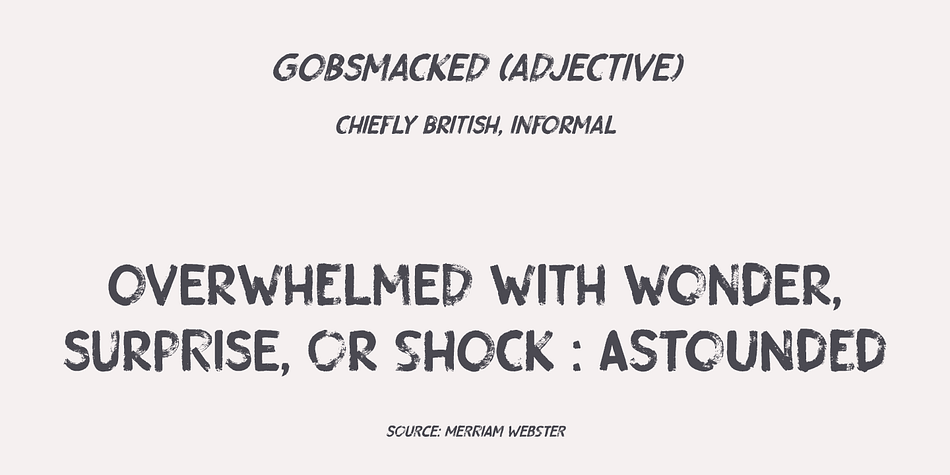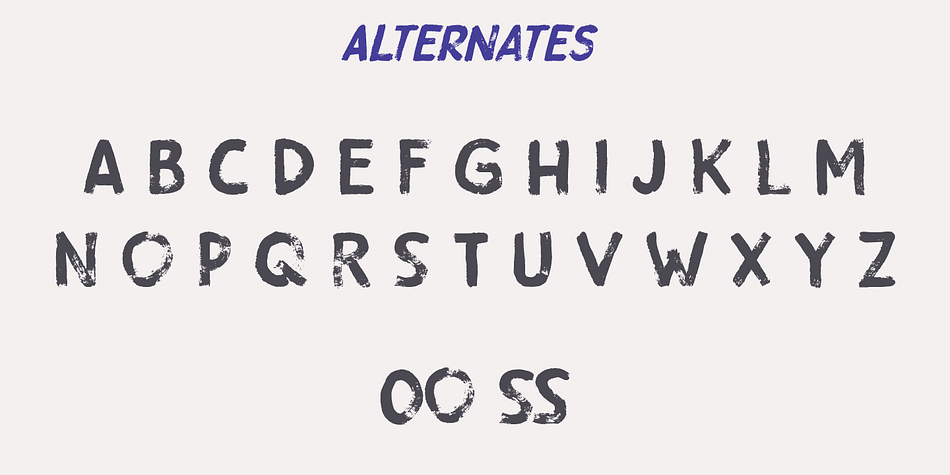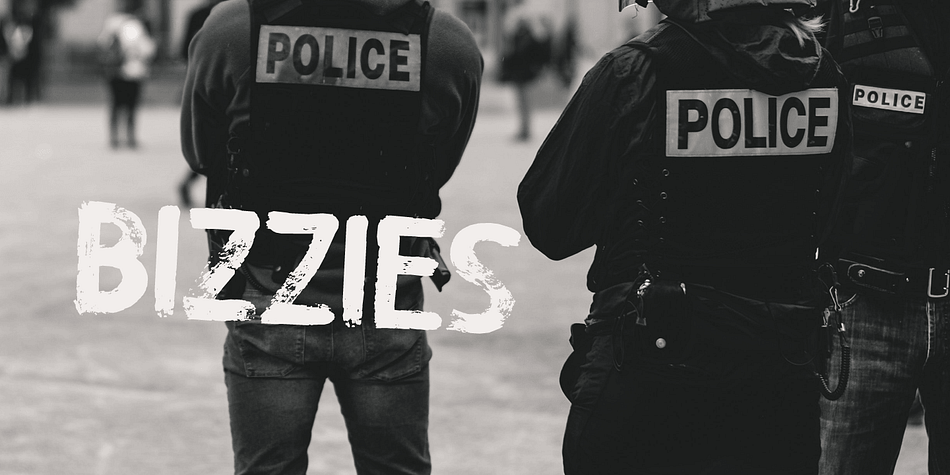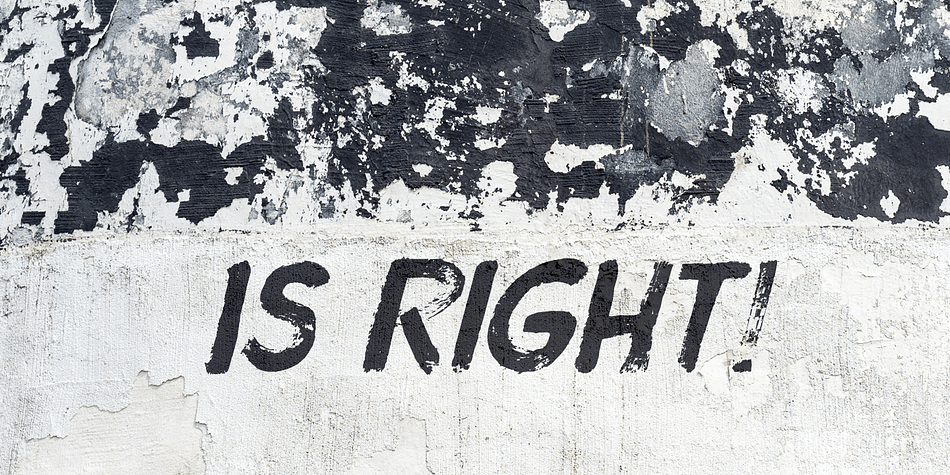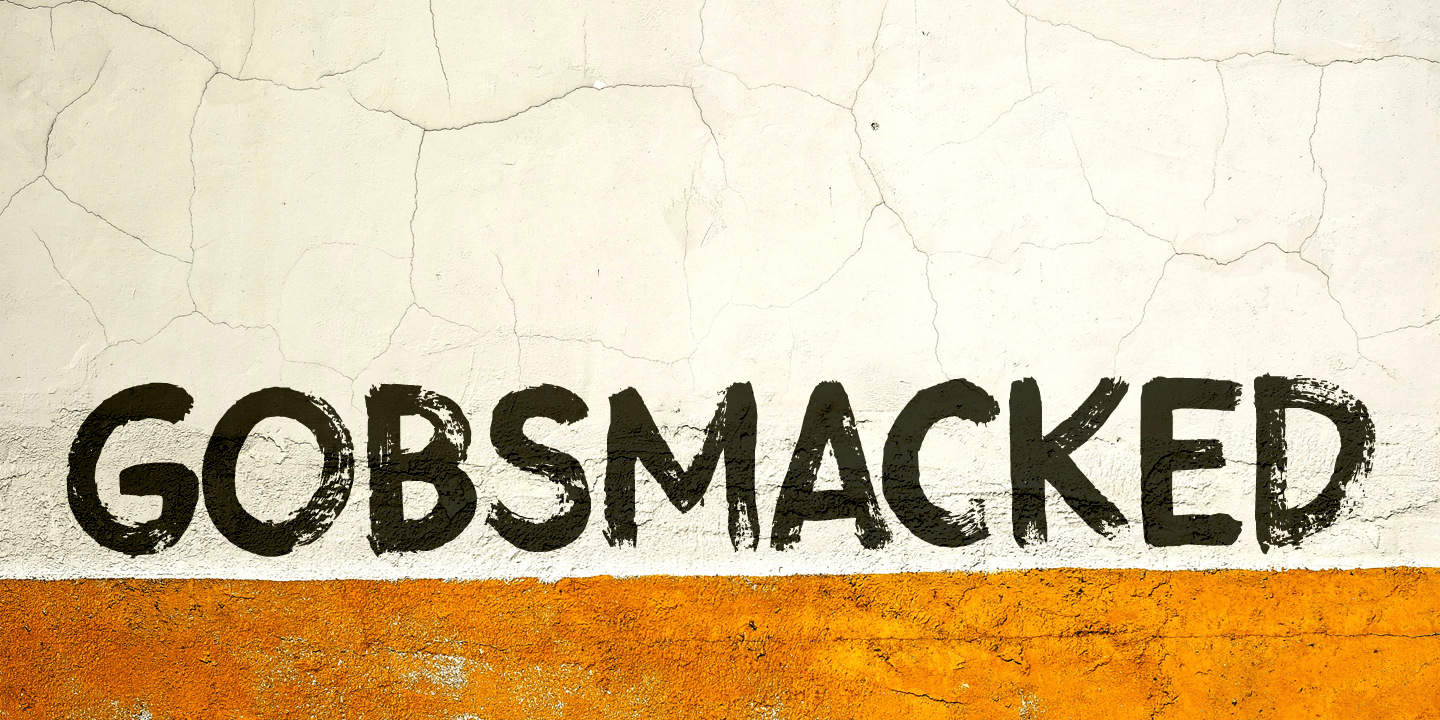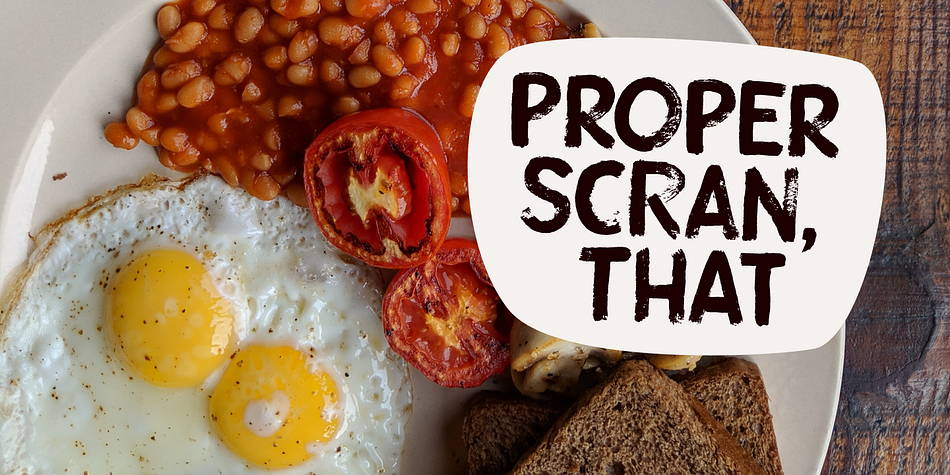
Designed by David Kerkhoff, Gobsmacked is a brush display and grunge font family. This typeface has two styles and was published by Hanoded.
Gobsmacked is a rather new English word. It has been around since 1959 and was used mostly around Liverpool at that time. The word means: ’astounded’, ‘flabbergasted’ (another nice word!) or ‘speechless’. Gob could be of French or Scottish Gaelic origin and means ‘mouth’.
Gobsmacked font was created using a brush and black gouache. The result is a very eroded, very legible and quite unique brush font. I have created alternates for the lower case letters, plus two double letter ligatures (oo and ss).
Use it for any design that needs a little brushwork; I am sure the result will leave you gobsmacked!